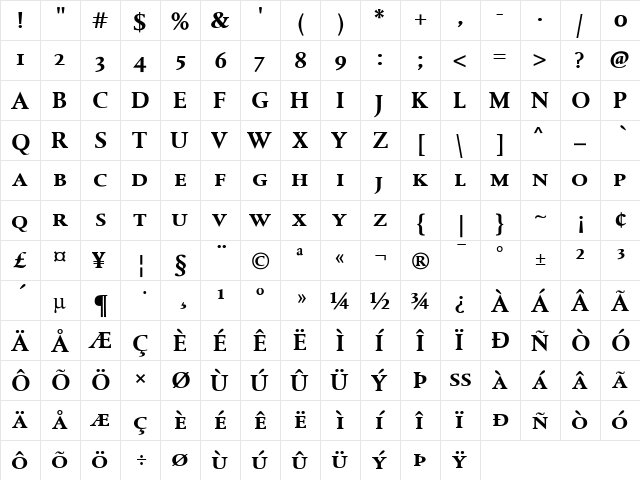
DTLAlbertinaTCaps Bold
Design Context for DTLAlbertinaTCaps Typeface
DTLAlbertinaTCaps is a composed and adaptable typeface that performs quietly and consistently across a wide range of design contexts. Its bold stroke weight gives it real presence on the page.